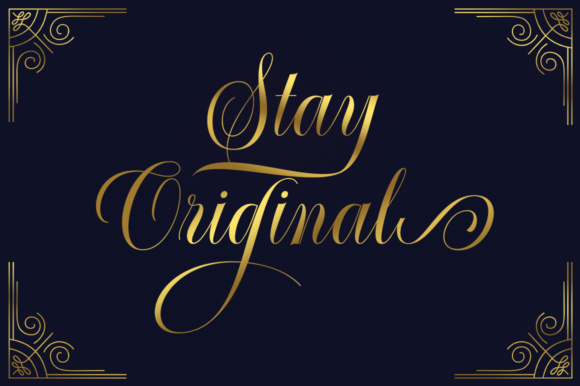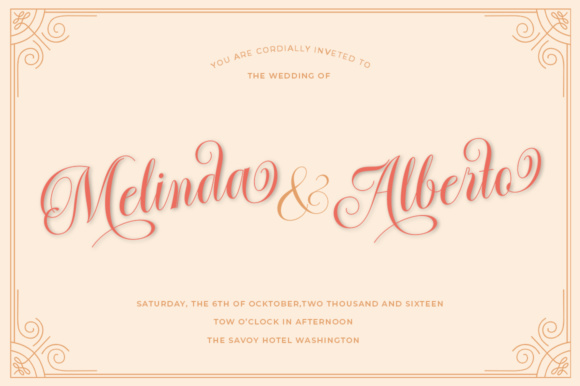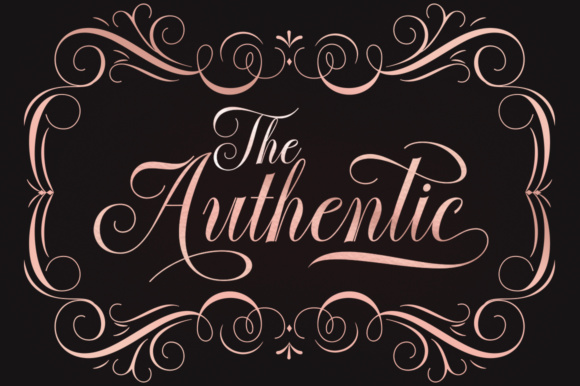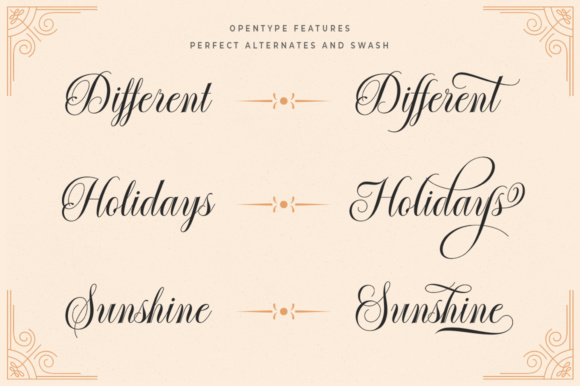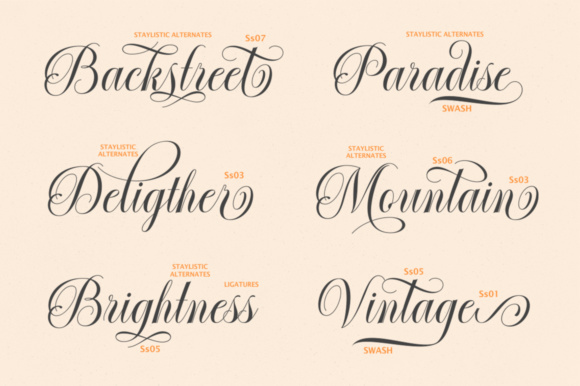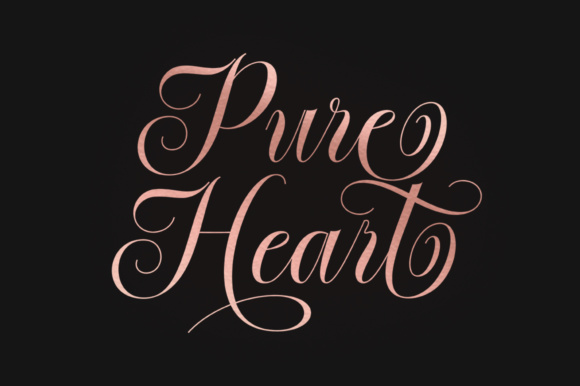
The Perfect Blend of Modern and Vintage Elegance: Introducing Authemart Script Font
Have you ever stumbled upon a beautiful font that makes your design dreams come true? I’m sure you have, and I’m about to share one of those magical moments with you. As a designer, I was on the hunt for the perfect script font to give my latest project a touch of sophistication. That’s when I discovered Authemart Script Font – a stunning font that effortlessly combines modern and vintage elements.
Authemart Script Font is more than just a beautiful font; it’s a valuable tool for designers who want to add a classic touch to their designs. With its smooth, clean, and feminine design, it’s perfect for a wide range of projects, from elegant wedding invitations to stylish branding materials. Whether you’re a professional designer or a creative enthusiast, Authemart Script Font is a must-have in your font collection.
Authemart Script Font Key Features
- Unique Characteristics: Authemart Script is a beautiful, elegant, and modern script font, perfect for creating beautiful and unique designs. It features flowing connections, elegant curves, and a sophisticated feel.
- Font Style: Script, Calligraphy
Authemart Script Font Review
As a designer, I’ve had the chance to work with a wide range of fonts, and I have to say that Authemart Script Font is a unique one. ✨ One of the things I love about it is the organic, handwritten feel it brings to any design. It’s perfect for creating a sense of warmth and personality.
The font is highly legible, even at smaller sizes, and the characters are well-proportioned. ✨ I’ve used it for headings, titles, and even body text, and it always looks great. The font also has a wide range of languages supported, making it a great option for multi-lingual designs.
While Authemart Script Font is a great addition to any designer’s toolkit, there are a few limitations to keep in mind. ⚠️ One of the main issues is that it’s not suitable for use in small spaces, such as button text or captions. The font is also not as versatile as some other fonts, and it may not be the best choice for formal or corporate designs.
Overall, I think Authemart Script Font is a great choice for designers who want to add a touch of personality and whimsy to their designs. It’s not a font for every occasion, but when used in the right context, it can be a real game-changer. ✨
Features
- Organic, handwritten feel
- Highly legible, even at smaller sizes
- Well-proportioned characters
- Supports a wide range of languages
- Not suitable for small spaces or formal designs
Authemart Script is a beautiful script font perfect for adding a touch of elegance to your designs.
Use it for:
– Branding and logo designs
– Creative quotes and typography
– Any project that needs a touch of sophistication
Alternatives to Authemart Script Font for Designers
Carolyna Pro is a modern script font with elegant and sophisticated characteristics. It is ideal for use in high-end branding, luxury products, and editorial design. Carolyna Pro has a similar feel to Authemart Script Font but with a more refined and polished look, making it suitable for corporate and professional projects.
Great Vibes is a beautiful, handwritten script font that is perfect for creating a friendly and approachable atmosphere in your designs. It is great for use in social media graphics, invitations, and other projects where a casual and relaxed feel is desired. Compared to Authemart Script Font, Great Vibes has a more fluid and expressive feel, making it ideal for projects that require a sense of movement and energy.
Alex Brush is a elegant and sophisticated script font that is perfect for use in high-end branding, luxury products, and editorial design. It has a similar feel to Authemart Script Font but with a more refined and polished look, making it suitable for corporate and professional projects. Alex Brush is ideal for use in projects that require a sense of sophistication and elegance.